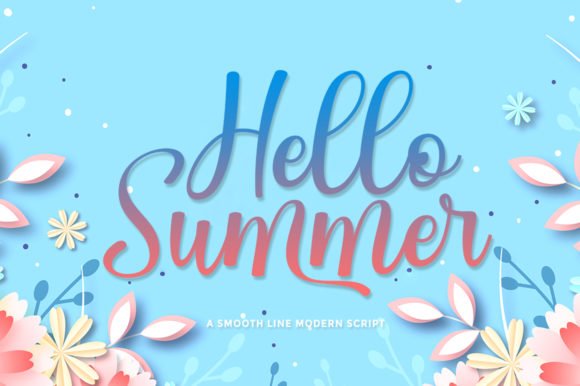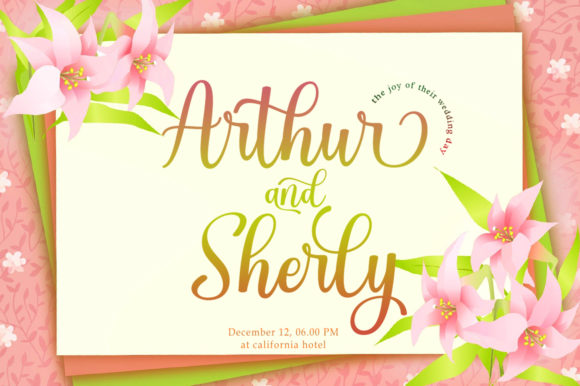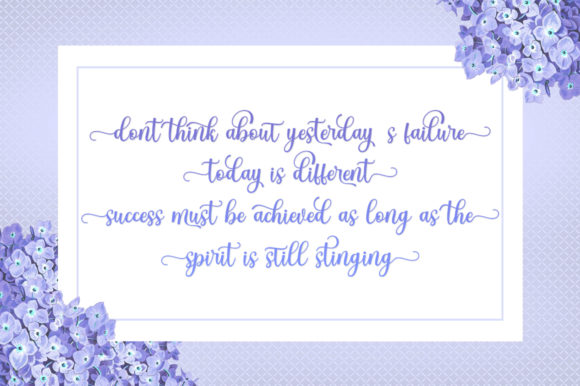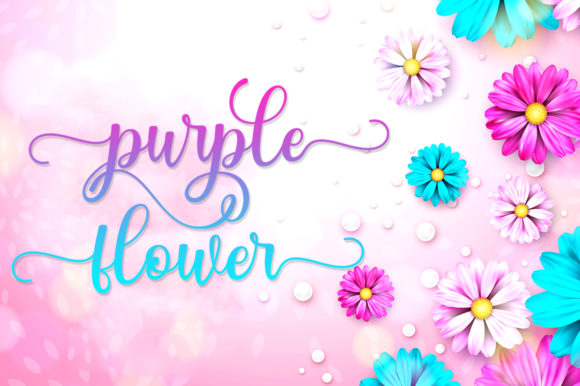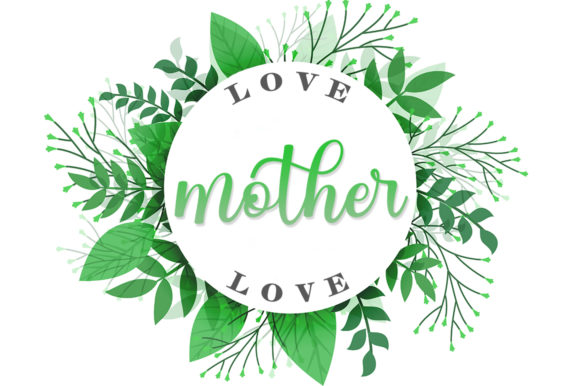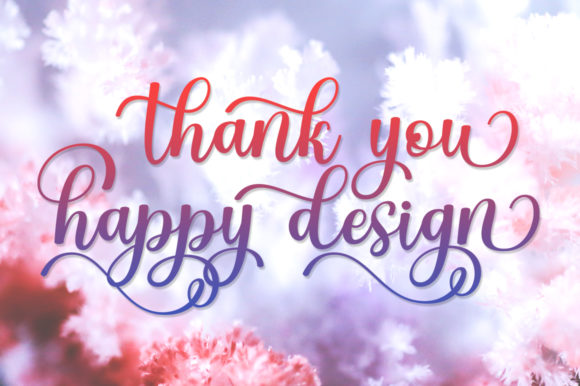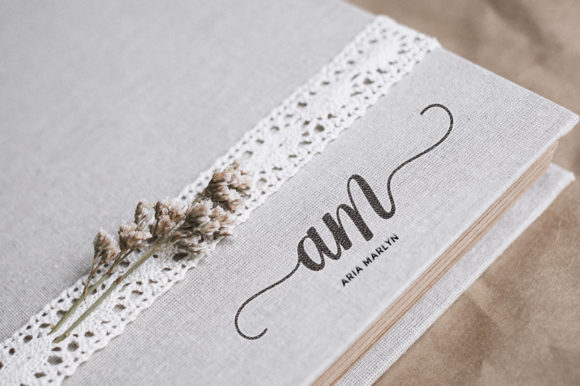
Getting Ready for a Handwritten Summer
As the sun starts shining brighter and the temperatures rise, many of us can’t help but feel a sense of excitement and renewal. For designers, this time of year often means a fresh wave of projects and creative endeavors – and what better way to kick them off than with a beautiful, handwritten touch?
Enter the Hello Summer Font, a stunning, delicate, and timeless handwritten font that’s perfect for adding a personal touch to your designs. Whether you’re crafting wedding invitations, thank you cards, or logos, this font is sure to make your work stand out. With its PUA encoding, you’ll have easy access to all the glyphs and swashes you need to create truly unique designs.
For designers, the Hello Summer Font is a valuable addition to any toolkit. Its versatility and charm make it a must-have for anyone looking to add a handwritten touch to their projects.
Hello Summer Font Key Features
- Font Family: Hello Summer is a unique and playful font family designed to evoke the feeling of summer.
- Font Size: The font comes in 4 different font sizes: 200, 300, 400, and 500, allowing for flexibility in design.
- Resolution: The font is optimized for high-resolution displays, ensuring crisp and clear typography at 300 DPI.
- Unique Characteristics: Hello Summer features a hand-drawn, whimsical design with bold lines and playful flourishes, making it perfect for summer-themed projects.
- Language Support: The font supports multiple languages, including Latin, Cyrillic, and Greek, making it suitable for global design projects.
Hello Summer Font Review
I was excited to dive into the Hello Summer Font and see what it had to offer. Overall, I think this font has a lot of potential, but it’s not without its flaws.
- Unique and Playful Design: The Hello Summer Font has a carefree, summery vibe that’s perfect for travel, lifestyle, or food-related brands.
- Customizable: This font comes in a range of weights and styles, making it easy to tailor to your specific design needs.
- High-Quality: The font is crisp and clear, even at smaller font sizes.
- Limited Character Set: The font lacks some essential characters, such as accented letters and special symbols.
- Not Suitable for Formal Brands: While the font is great for casual, relaxed brands, it may not be the best choice for more formal or corporate clients.
Overall, I think the Hello Summer Font is a solid choice for designers looking for a fun, playful font. However, it’s essential to consider its limitations before committing to a design project.
Practical Application Guide for “Hello Summer Font”
Tips for Getting the Most Out of “Hello Summer Font”
For the best results, use “Hello Summer Font” in a bold and playful way, such as in headings or titles. You can also combine it with other fonts to create a unique and eye-catching design.
“Hello Summer Font” is perfect for:
- Birthday party invitations
- Summer-themed social media posts
- Beach-themed designs
- Summer sales or promotions
Alternatives to Hello Summer Font
Pacifico is a beautiful, elegant script font perfect for creating a warm and inviting atmosphere. It’s ideal for use in branding, wedding invitations, and other designs where a touch of sophistication is required.
Compared to Hello Summer Font, Pacifico has a more refined and luxurious feel, making it a great choice for high-end designs. While Hello Summer Font is more playful and casual, Pacifico is better suited for formal events and luxury brands.
Great Vibes is a modern, cursive font with a fun and energetic vibe. It’s perfect for use in designs where a sense of adventure and excitement is required, such as travel brochures, event promotions, and social media graphics.
Compared to Hello Summer Font, Great Vibes is more modern and trendy, making it a great choice for designs that need to stay up-to-date with the latest fashion and design trends. While Hello Summer Font is more classic and timeless, Great Vibes is better suited for designs that need to make a bold statement.